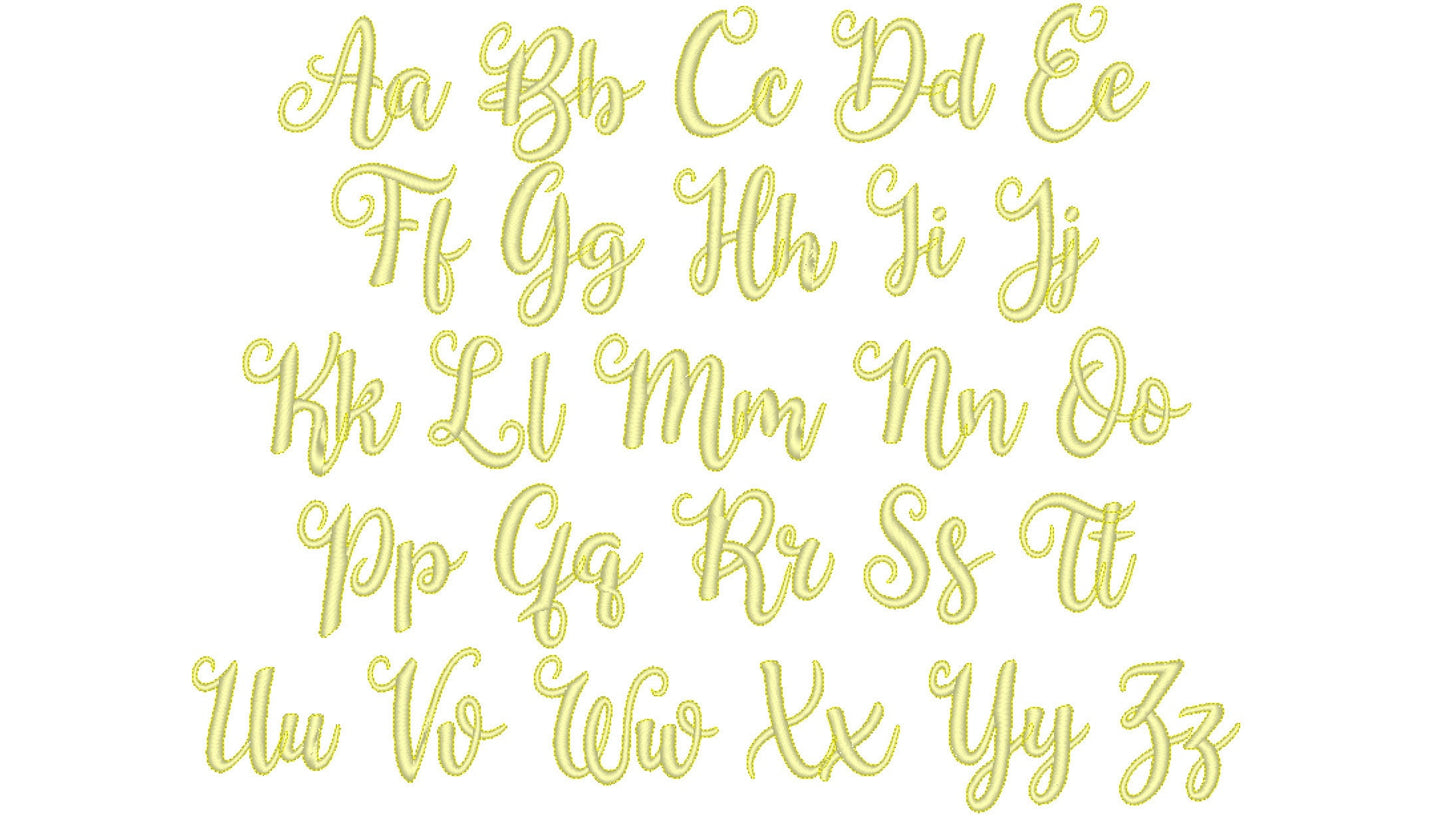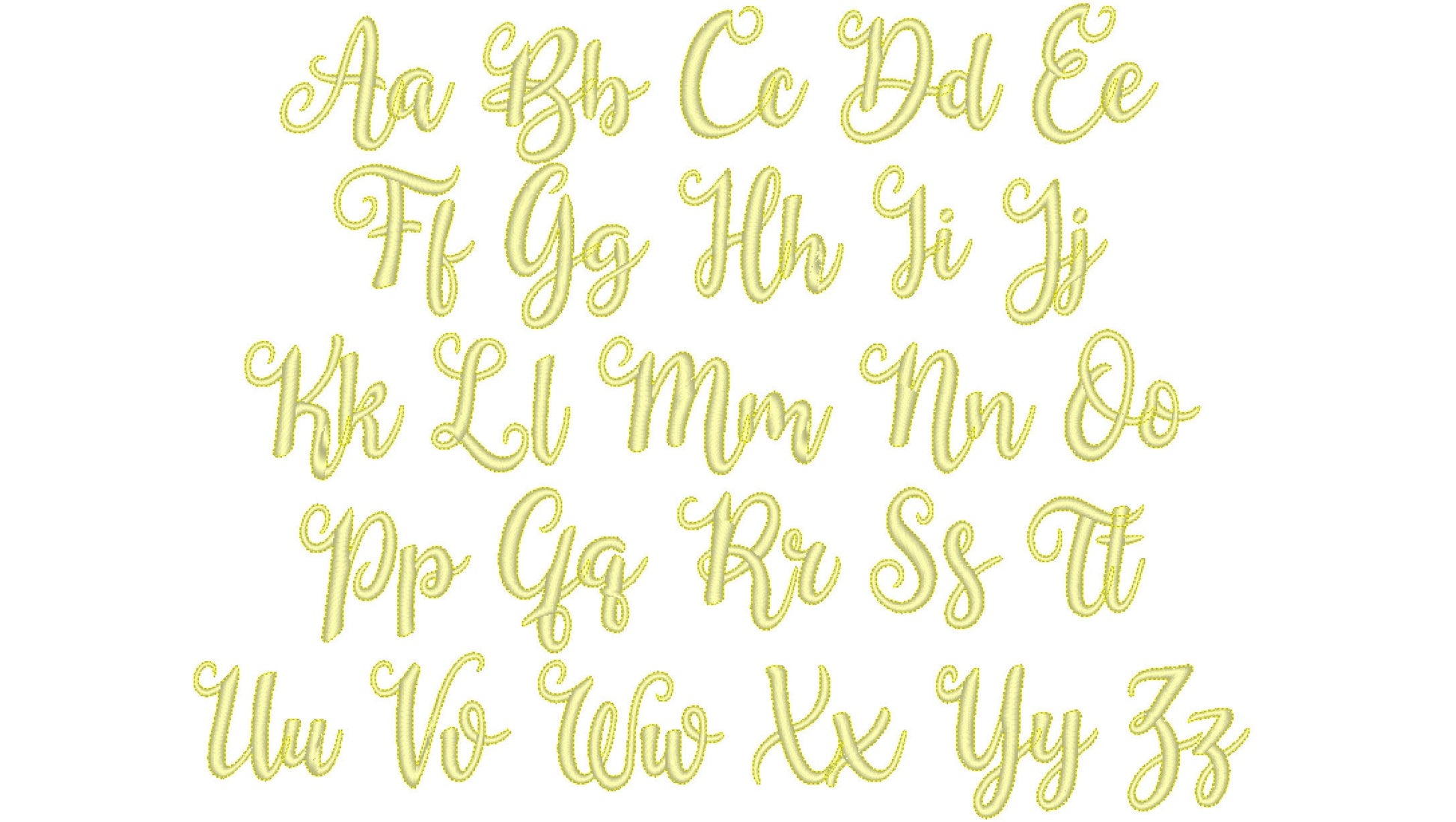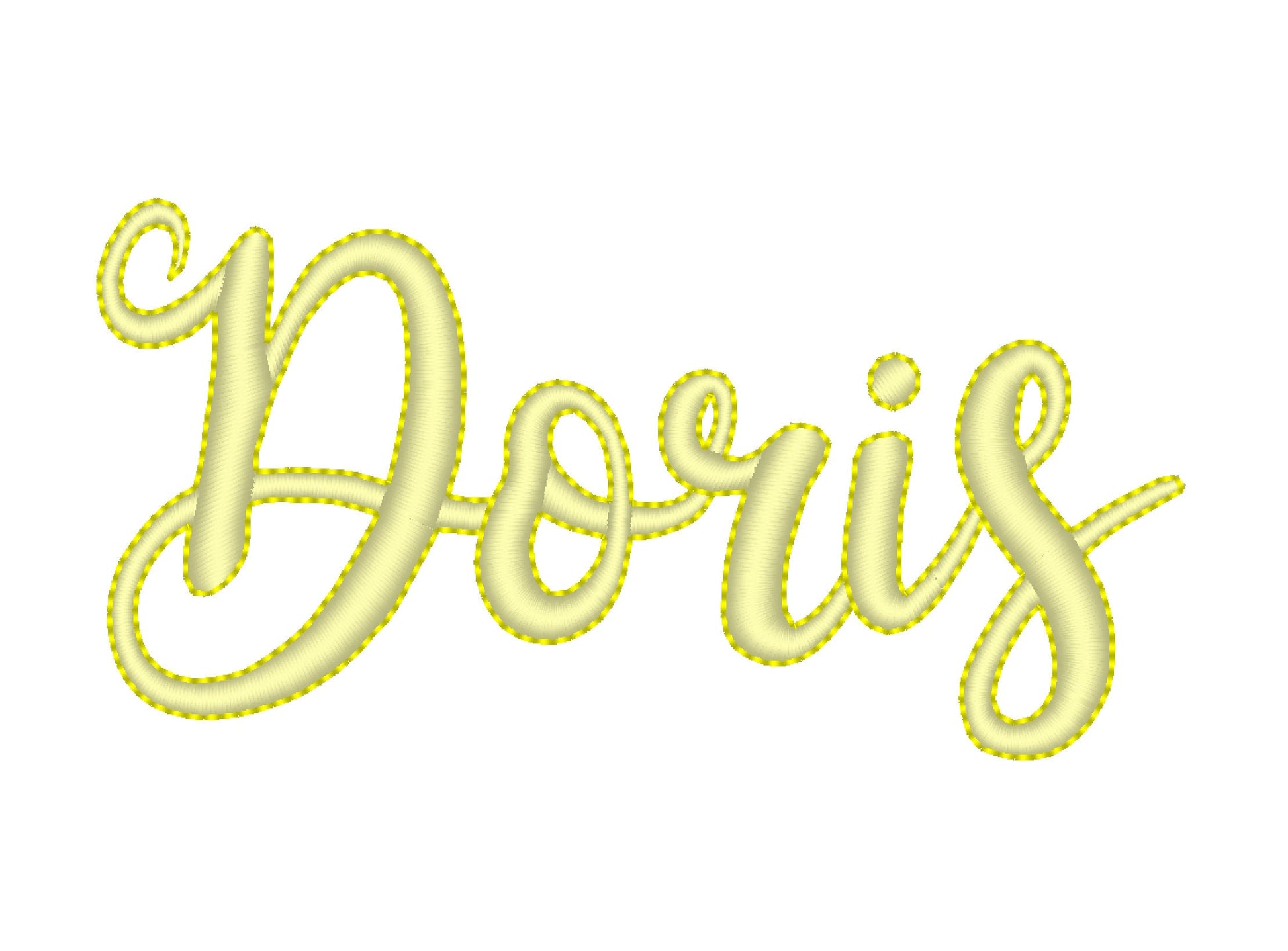
Or click to open the linkA delicate, curly handwritten font in satin stitch with a bean stitch outline. Pretty for names, initials and small gifts.
Uppercase and lowercase letters and numbers 0 to 9 in eight sizes: 0.6, 0.8, 1, 1.2, 1.4, 1.6, 2 and 2.4 inches. A soft satin line with a fine bean stitch outline.